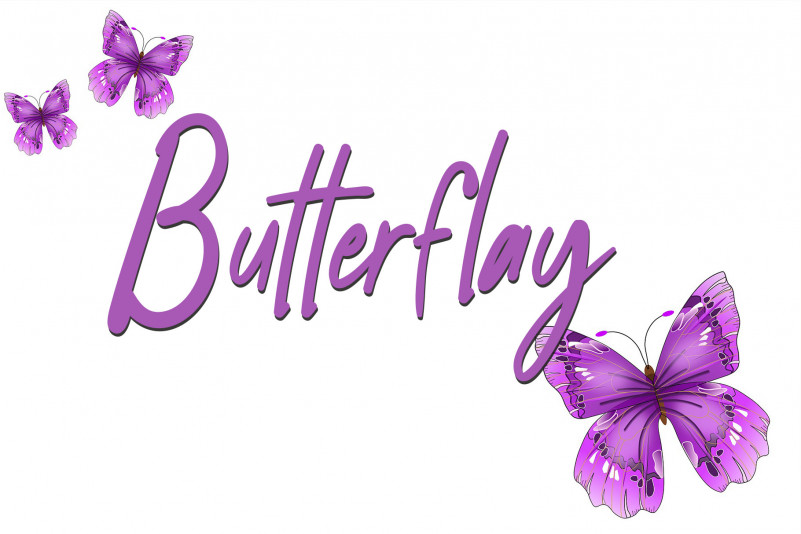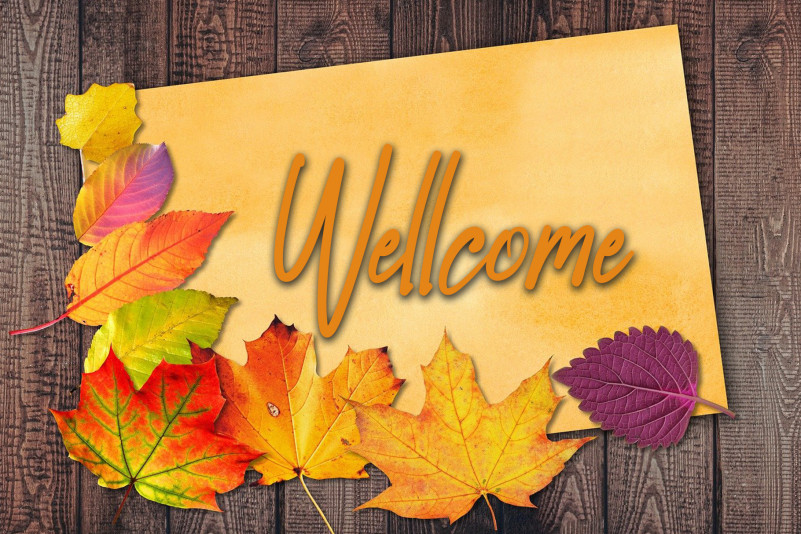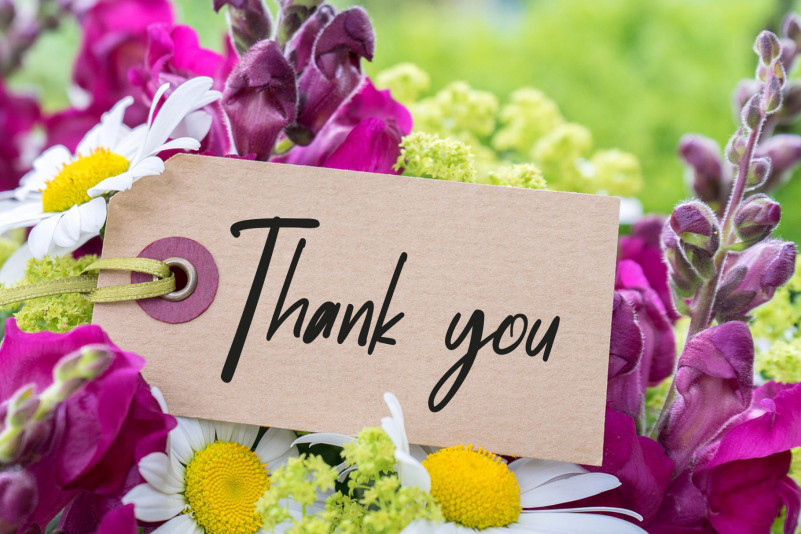
South Amsterdam Font
South Amsterdam Script Font
This is a charming handwritten font. Fall in love with its authentic feel and use it to create gorgeous wedding invitations, beautiful stationary art, eye-catching social media posts, and cute greeting cards.